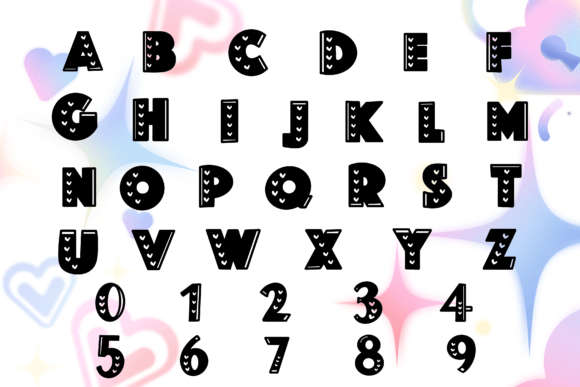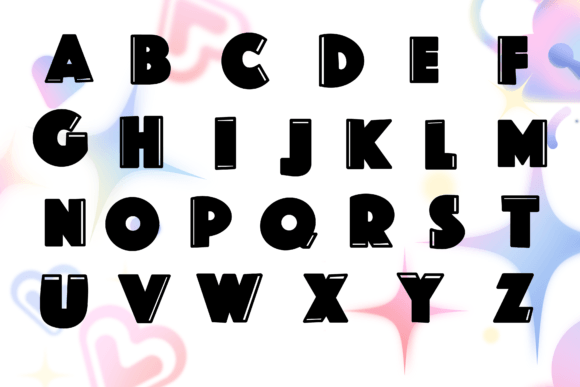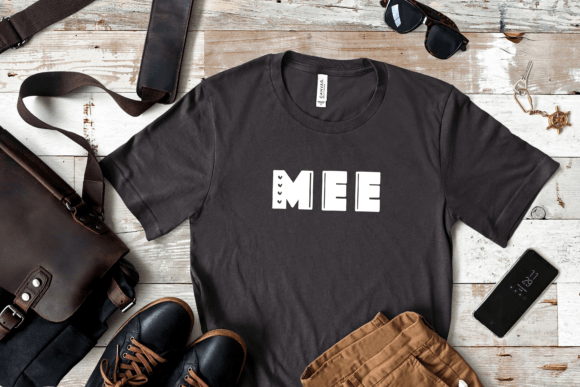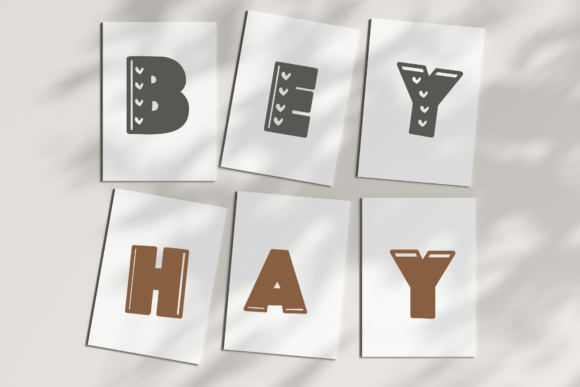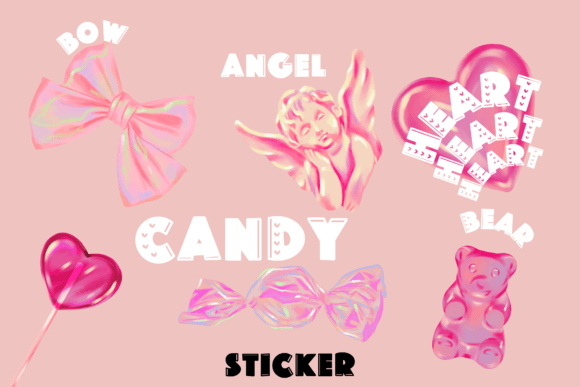
Introducing Cute Heart Font: Add Warmth and Charm to Your Designs
In the world of typography, a font can make all the difference in conveying emotions and setting the tone for your creative projects. If you’re looking for a font that exudes warmth, charm, and playfulness, look no further than Cute Heart Font. This uniquely crafted decorative font is perfect for designers, crafters, and writers who want to add a touch of personality to their work.
The Versatility of Cute Heart Font
Cute Heart Font is an incredibly versatile typographic choice that can be used in a wide range of design assignments. Whether you’re working on a personal project or a client’s, this font is sure to impress. Here are some ideas to get you started:
- Diaries and Journals: Add a personal touch to your diary entries or journal pages with Cute Heart Font. Its whimsical design makes it perfect for writing down thoughts, quotes, or inspiration.
- Greeting Cards: Create heartwarming greeting cards for special occasions like birthdays, Valentine’s Day, or anniversaries. The font’s playful design is sure to bring a smile to the recipient’s face.
- Banners and Signs: Use Cute Heart Font to create eye-catching banners and signs for events, parties, or promotions. Its bold and colorful design is sure to grab attention.
- Social Media Posts: Elevate your social media posts with Cute Heart Font. Whether you’re sharing quotes, inspiration, or personal updates, this font is sure to make your content stand out.
- Mug Designs: Create adorable mug designs with Cute Heart Font. Perfect for gifts or personal use, these designs are sure to bring a touch of warmth and personality to anyone’s morning coffee.
- T-Shirt Designs: Take your t-shirt designs to the next level with Cute Heart Font. Create statement pieces that showcase your personality or brand.
Why Choose Cute Heart Font?
So, what sets Cute Heart Font apart from other decorative fonts? Here are some reasons why designers and crafters love this font:
- Unique Design: Cute Heart Font boasts a one-of-a-kind design that’s both playful and charming. Its unique character set ensures that your designs will stand out from the crowd.
- Elegant and Whimsical: This font strikes the perfect balance between elegance and whimsy. Its sophisticated design makes it suitable for a wide range of projects, from formal to informal.
- Easy to Read: Despite its decorative nature, Cute Heart Font is surprisingly easy to read. This makes it perfect for designs that require a personal touch without sacrificing legibility.
- Highly Versatile: As mentioned earlier, Cute Heart Font can be used in a variety of design assignments. Its versatility makes it an excellent addition to any designer’s toolkit.
Tips for Using Cute Heart Font
To get the most out of Cute Heart Font, here are some tips to keep in mind:
- Pair with Other Fonts: Experiment with pairing Cute Heart Font with other fonts to create visually appealing combinations. Try pairing it with a sans-serif font for a modern look or a script font for a more elegant feel.
- Play with Colors: Cute Heart Font looks great in a variety of colors. Experiment with different hues and shades to find the perfect color scheme for your design.
- Use it Sparingly: While Cute Heart Font is perfect for headlines and titles, use it sparingly in body text. Its decorative nature can be overwhelming in large blocks of text.